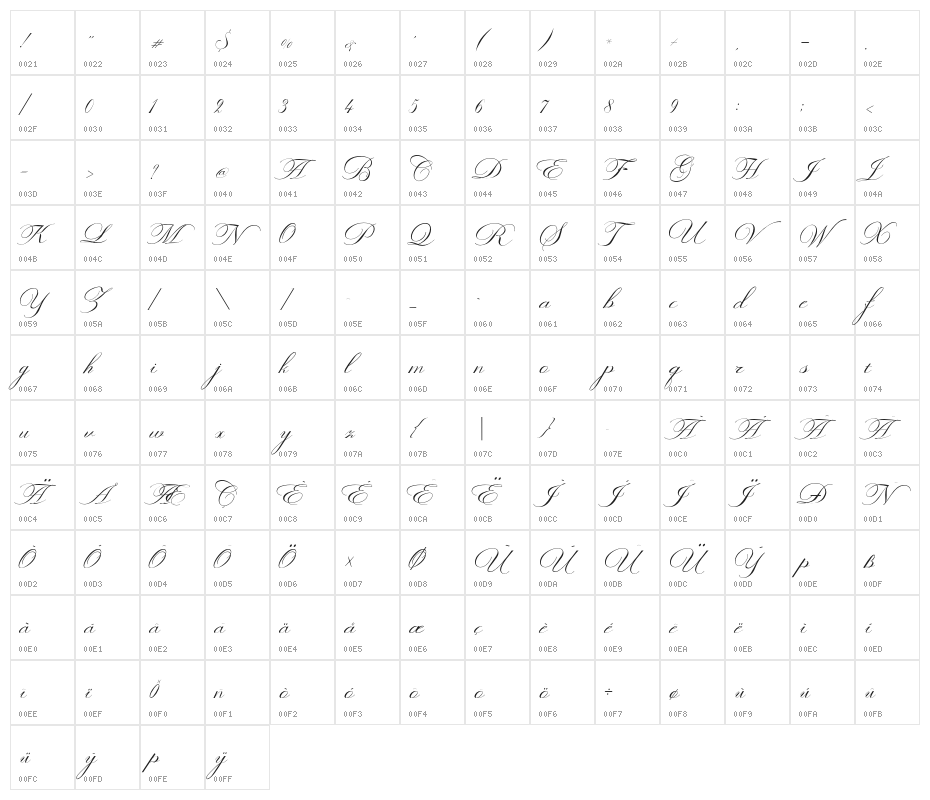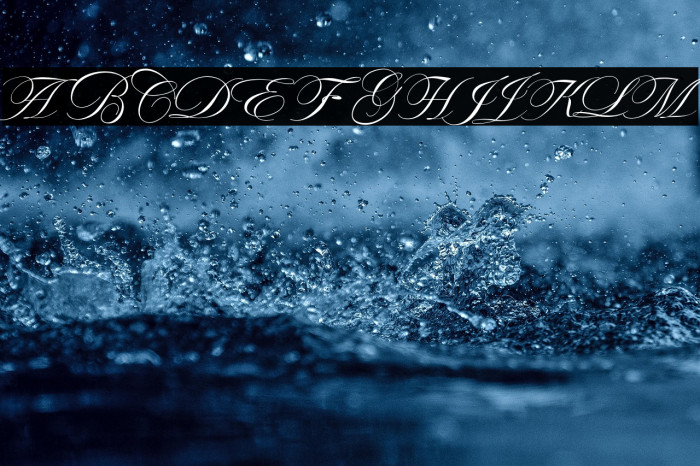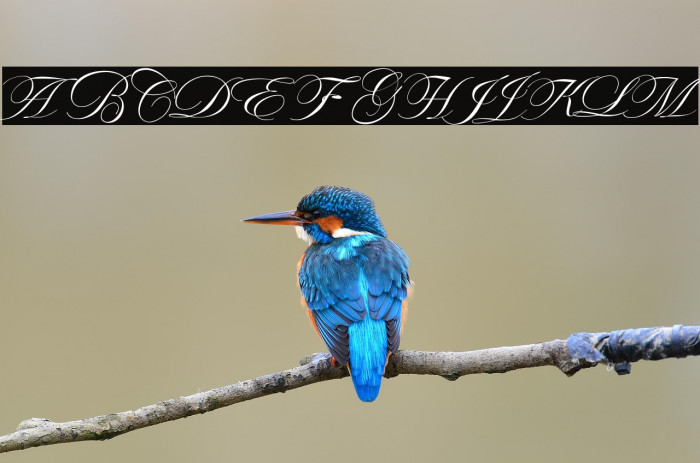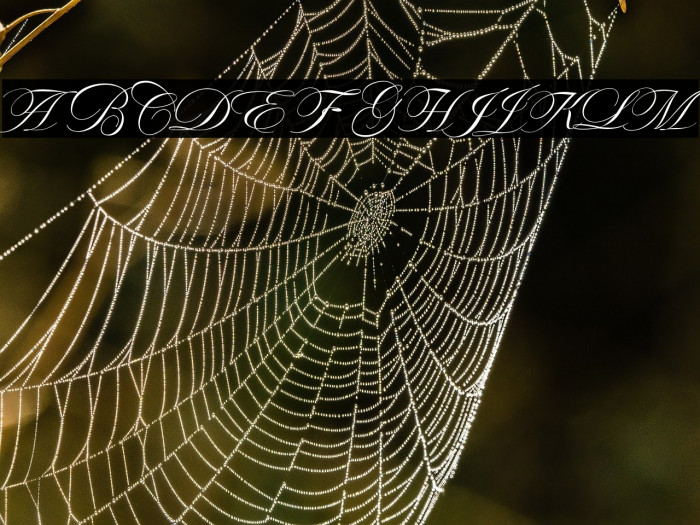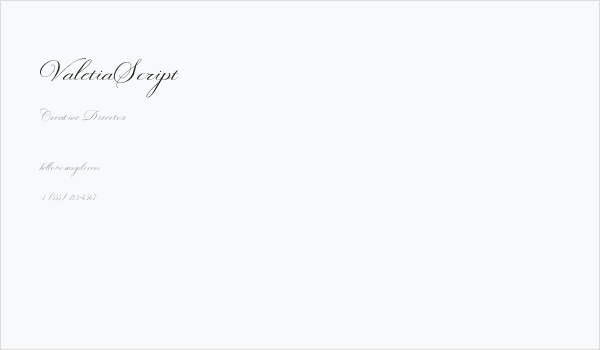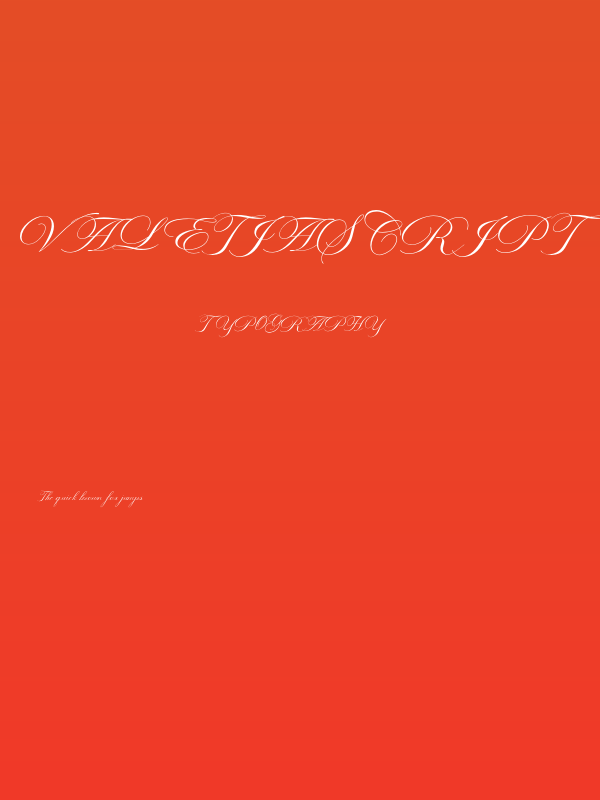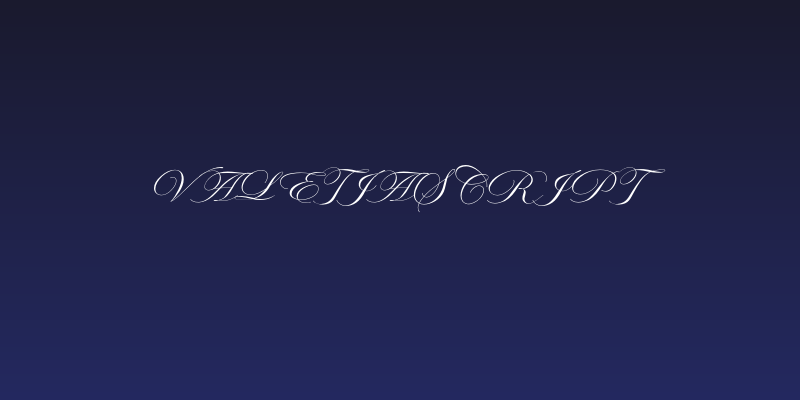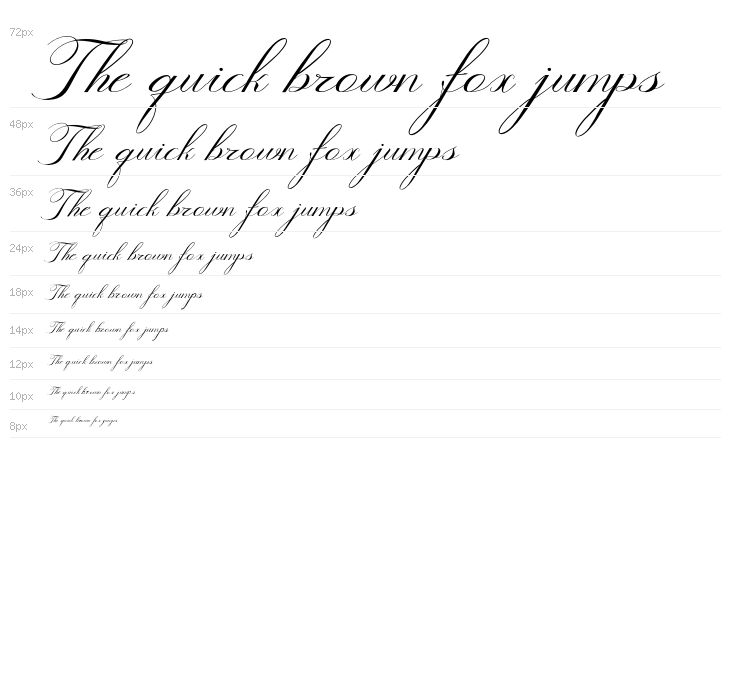
ValetiaScript Font
ValetiaScript Description
This elegant script font features flowing, interconnected letters that exude a sense of sophistication and grace. The uppercase letters are adorned with intricate loops and flourishes, creating a sense of movement and fluidity. The lowercase letters maintain a consistent style, with smooth curves and delicate strokes that enhance readability while maintaining an artistic flair. The numerals are designed to complement the overall aesthetic, with a similar emphasis on curves and elegance. Special characters are thoughtfully integrated, ensuring they blend seamlessly with the rest of the font. This font is perfect for projects that require a touch of elegance and refinement.
| Overall Style | Elegant |
| Use Case | Logos, Invitations, Branding |
| Proposed Projects | Ideal for wedding invitations, luxury branding, elegant stationery, and high-end product packaging. |